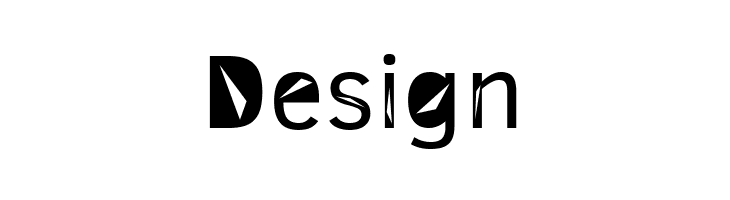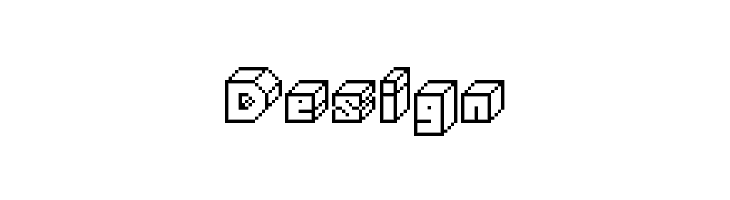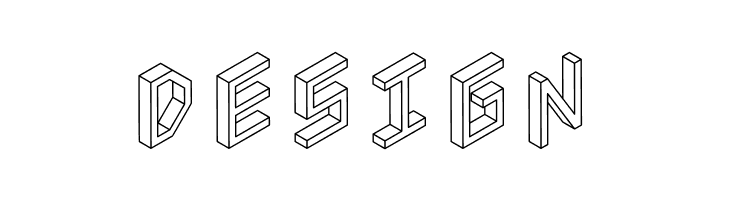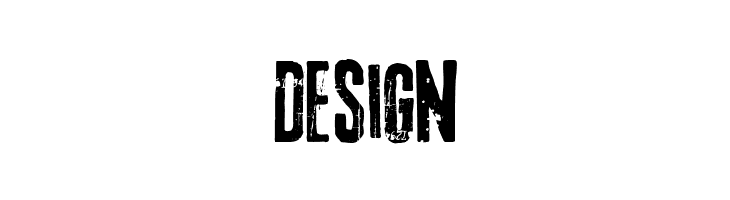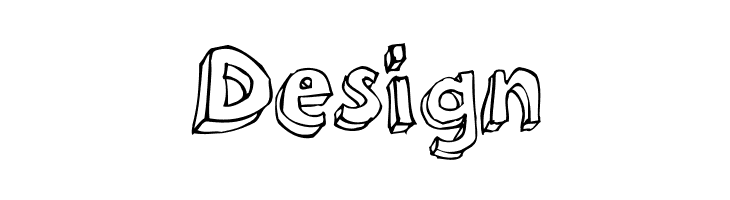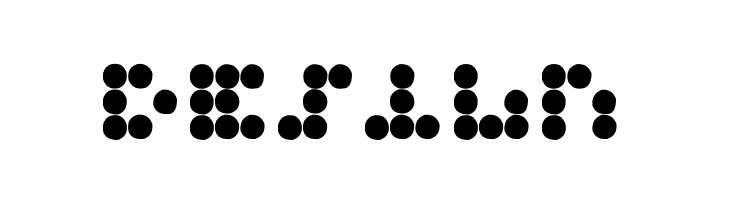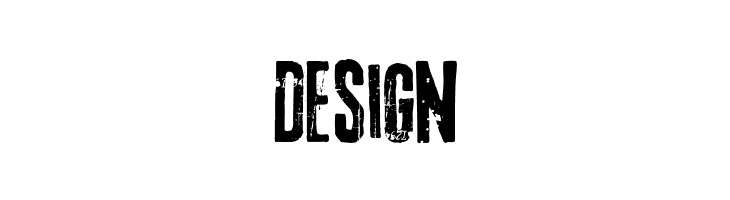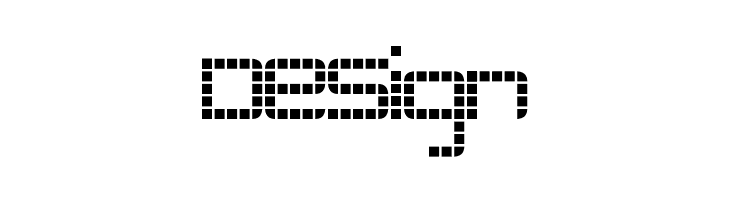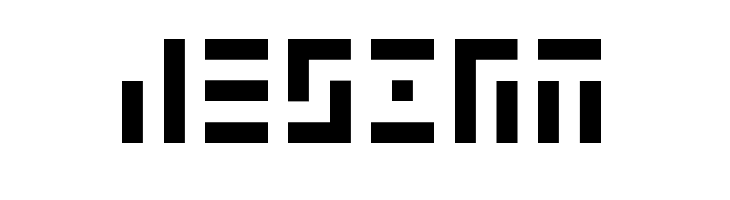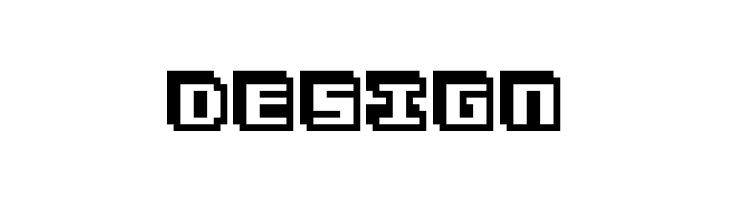
( Fonts by Darrell Flood )
A playful, hand-drawn 3D font with a bold, textured style.
A 3D isometric font with a geometric and modern design.
A bold, 3D isometric font with a modern, geometric style.
A bold, 3D isometric font with a geometric and modern style.
A bold, 3D geometric font with a strong, architectural style.
A bold, 3D font with a playful and dynamic style.
A bold, 3D font with inverted shadow effects for a striking appearance.
A bold, 3D font with shadow effects for a striking visual impact.
A bold, 3D font with layered, striped patterns creating a dynamic, geometric look.
A bold, 3D-effect font with a strong, blocky style ideal for dynamic displays.
( Florian Contreras )
A bold, 3D pixelated font with a geometric, retro style.
( Fonts by Michael Tension - www.TensionType.com )
A bold, 3D hand-drawn font with a playful and dynamic style.
( memesbruh03 - Aaron D. Chand )
A bold, pixelated font with a retro digital style.
( Fonts by www.26plus-zeichen.de )
A bold, geometric font with a futuristic and cohesive design.
( Mubeen M - www.streamskystudios.com/ )
A bold, geometric font with sharp angles and dynamic cutouts.
( Fonts by Bumbayo Font Fabrik - bumbayo.blogspot.com )
A bold, distressed font with a vintage, industrial feel.
( Fonts by Bumbayo Font Fabrik - bumbayo.blogspot.com )
A bold, distressed font with a rugged, vintage appearance.
( Fonts by うろのる (uronoru) )
A geometric, blocky font with a futuristic, digital style.
A bold, geometric font with a futuristic, digital style.
( Fonts by www.fenotype.com )
A bold, distressed font with a gritty, urban aesthetic.
( SDFonts. http://www.angelfire.com/scifi2/sdfonts/index.html )
A dot matrix style font with a modern, digital appearance.